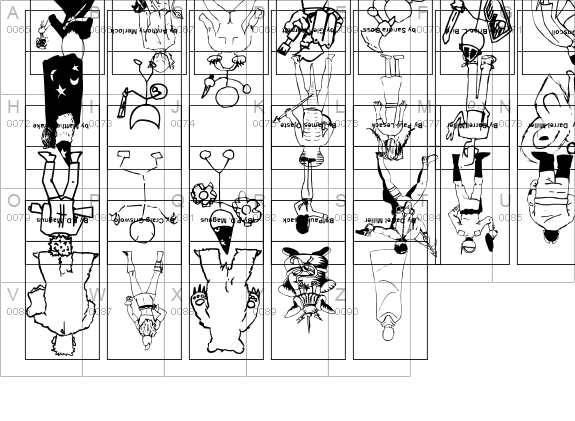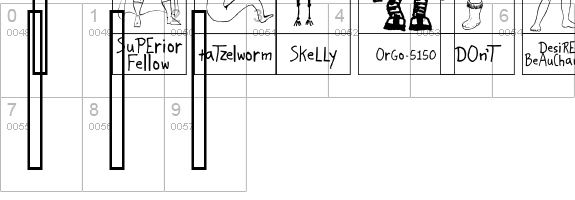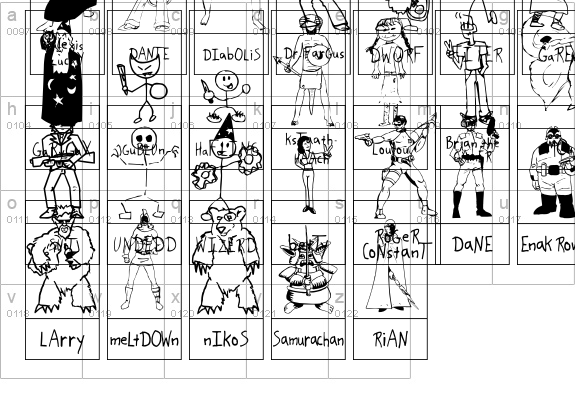
SPARKS Scrapbook Font Details
Introducing the captivating SPARKS Scrapbook font, a delightful addition to your creative projects. This unique typeface is perfect for bringing a touch of whimsy and nostalgia to your designs, making it ideal for scrapbooking, greeting cards, invitations, and more. With its charming hand-drawn style, SPARKS Scrapbook font brings a sense of warmth and personalization to any project. Its playful letterforms and slightly irregular shapes evoke the feeling of flipping through a cherished scrapbook, filled with cherished memories and heartfelt moments. One of the best features of this font is that it is free, allowing you to add a touch of creativity to your projects without breaking the bank. You can easily download the SPARKS Scrapbook font for free at FontsMarket.com, where it is readily available for your convenience. Whether you're a professional designer or a DIY enthusiast, SPARKS Scrapbook font offers endless possibilities for showcasing your creativity. Its versatility allows it to be used in a variety of contexts, from digital designs to printed materials. So go ahead and embark on a journey of creativity with the SPARKS Scrapbook font. Download it for free at FontsMarket.com and let your imagination run wild as you create stunning visuals that will captivate and inspire.